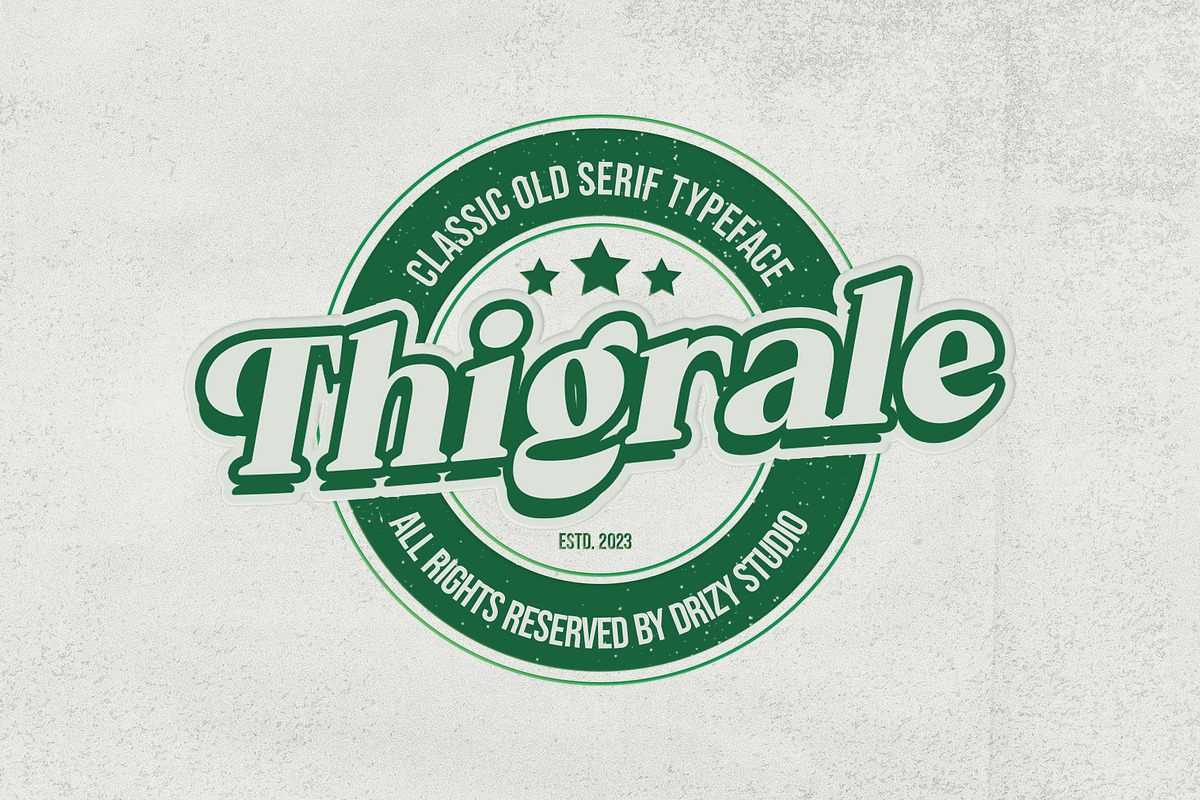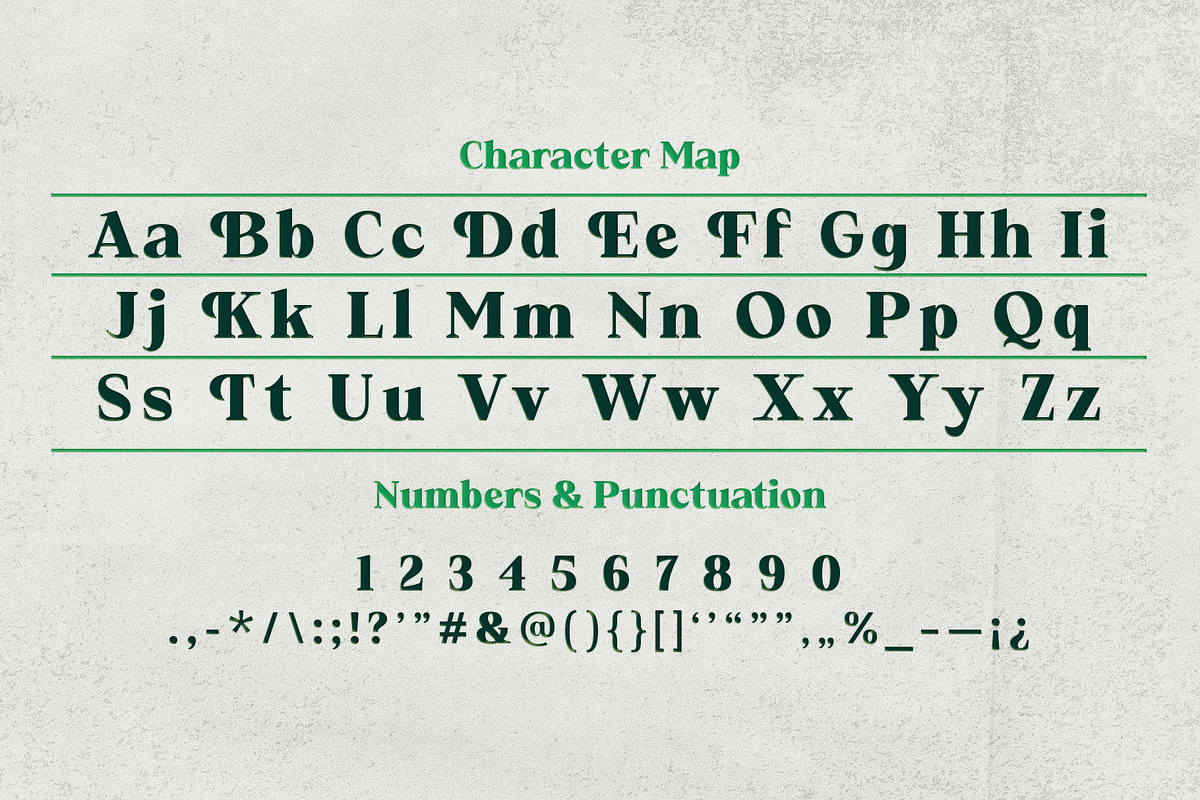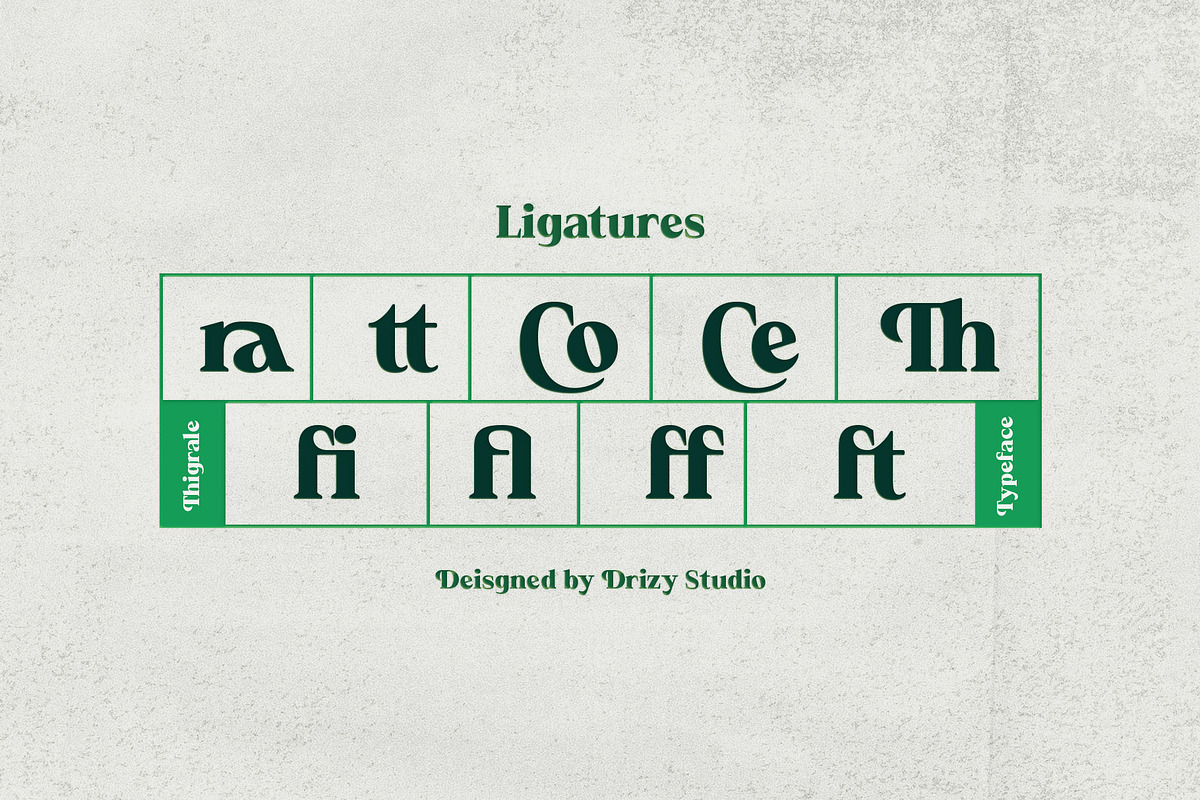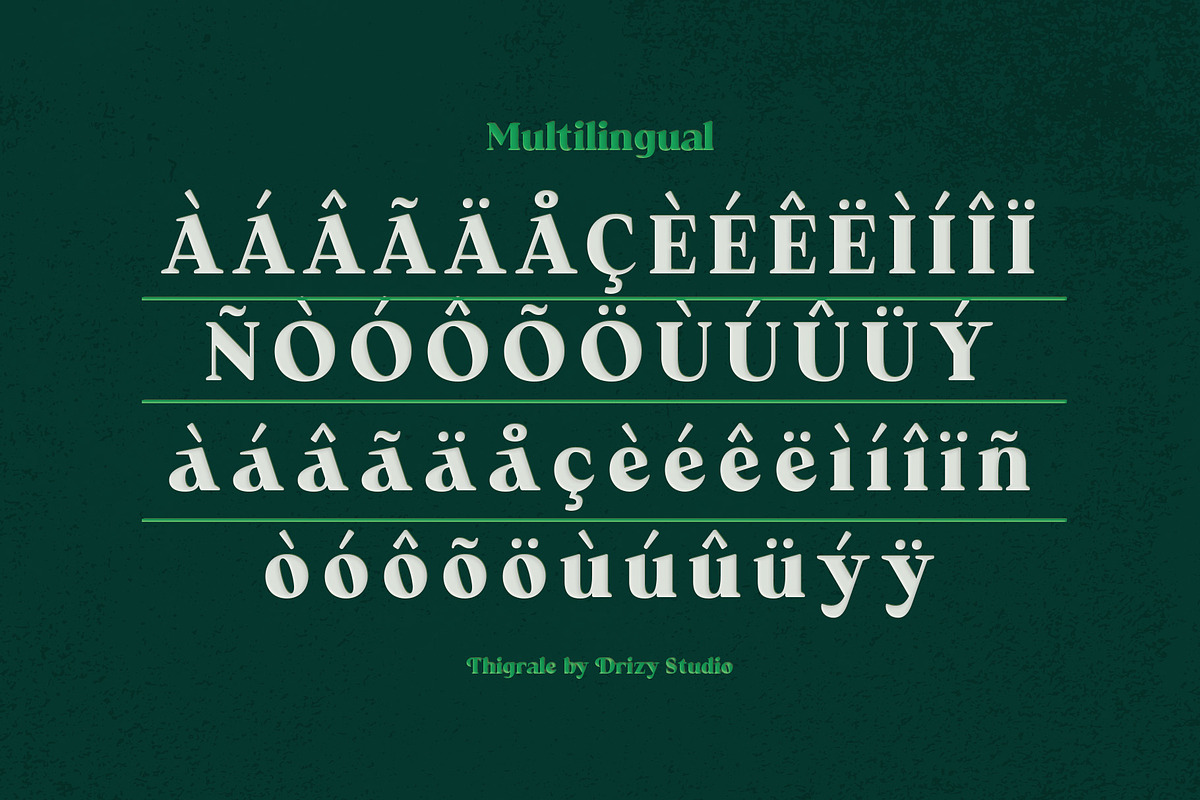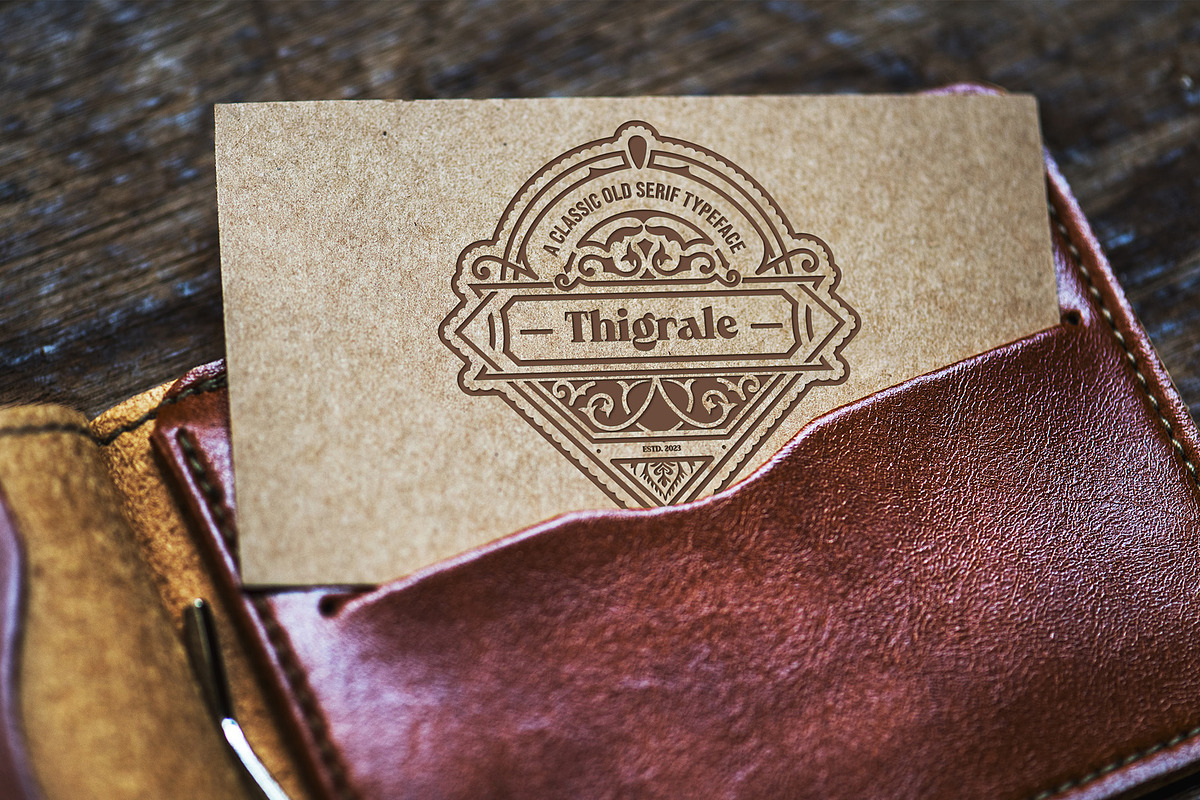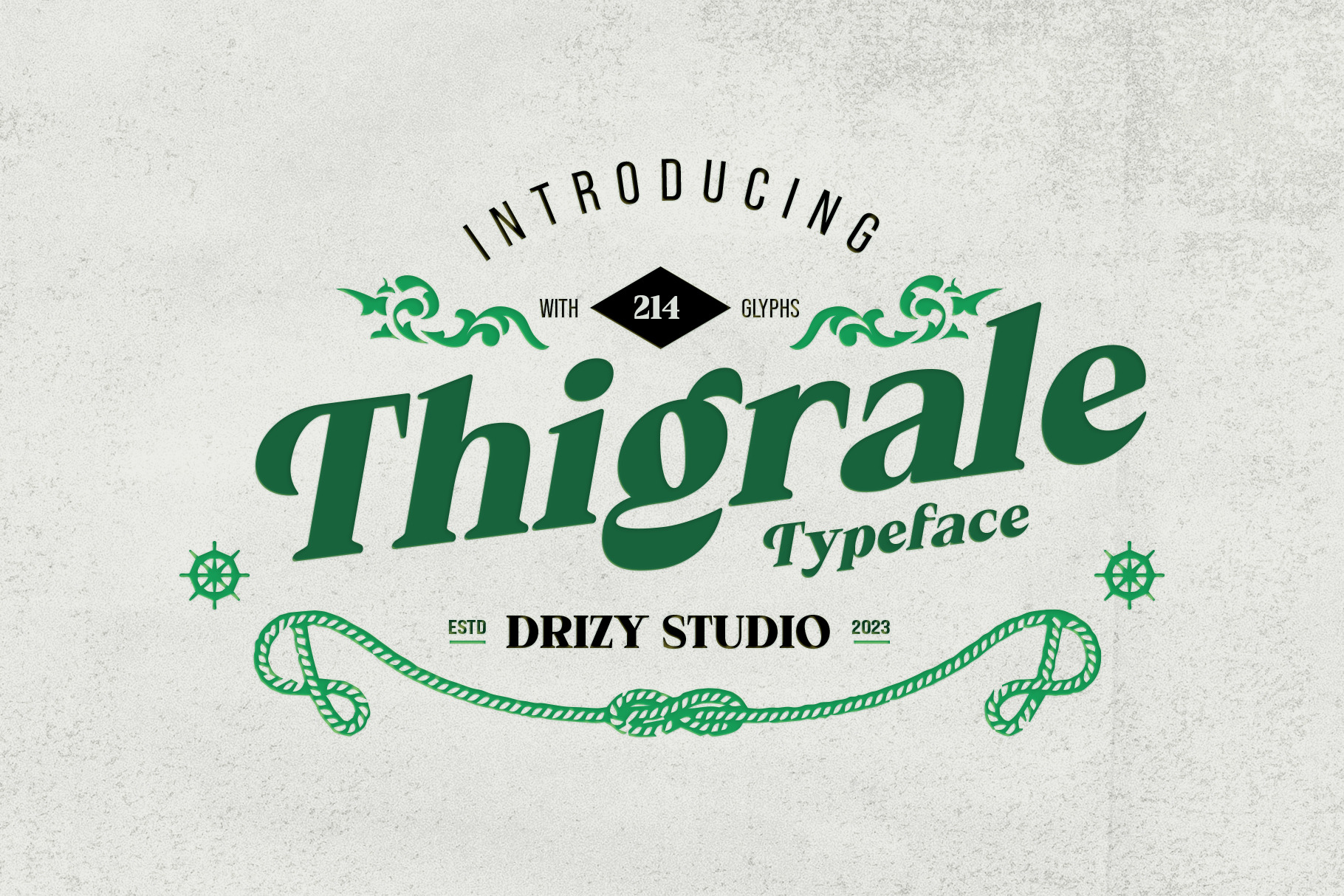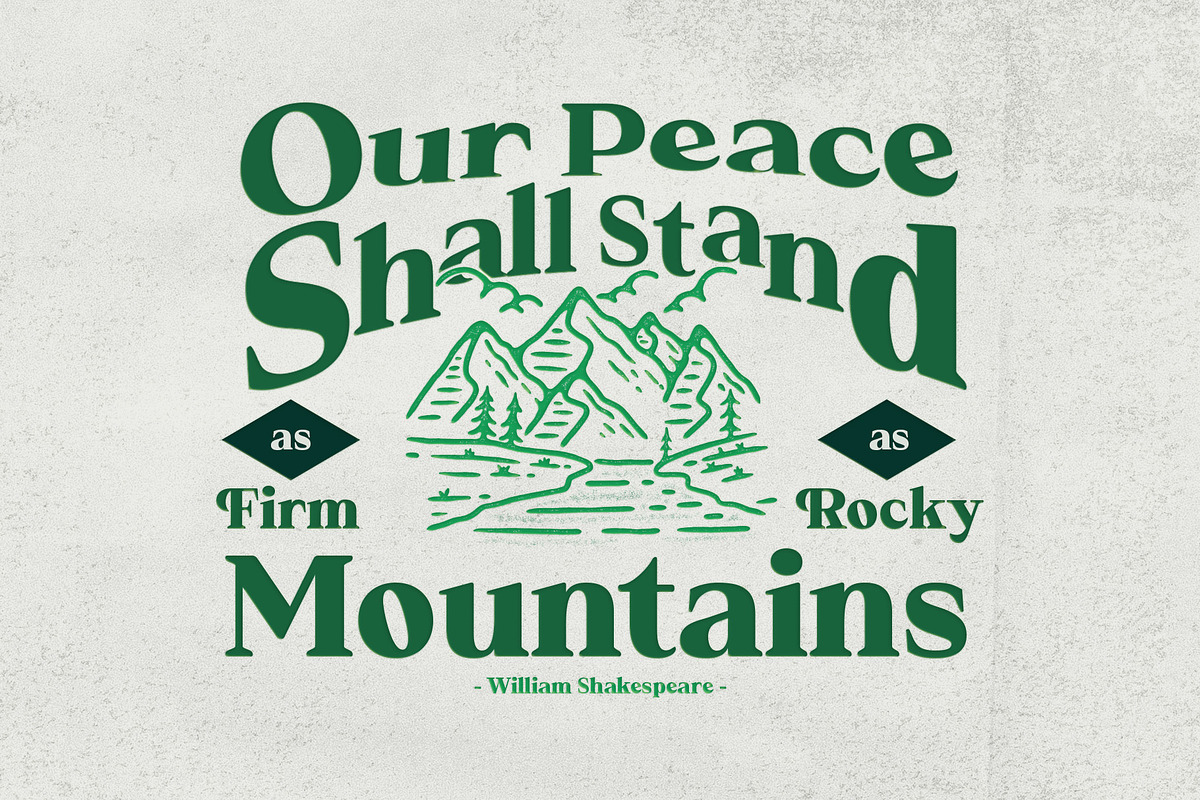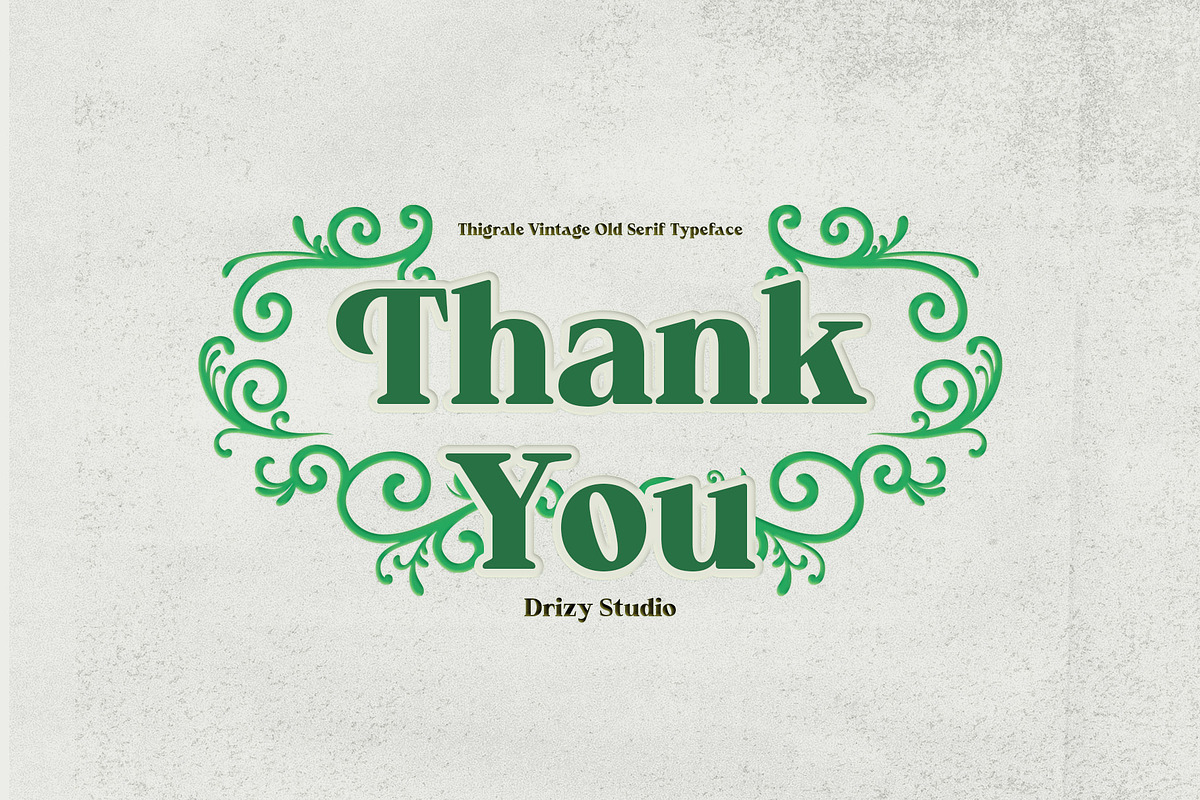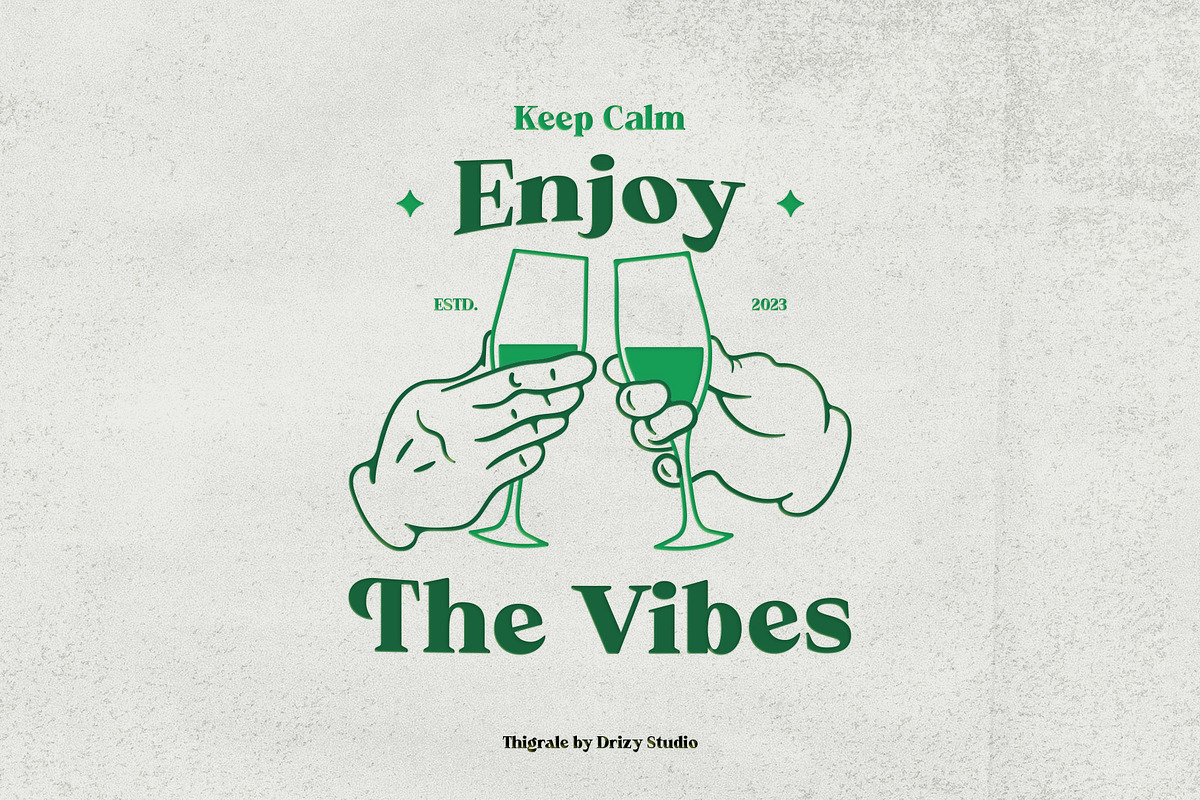
Thigrale – Classic Old Vintage Font
Kindrich font is vintage serif fonts that is a timeless and elegant category of typefaces that harken back to the bygone eras of print and typography. These fonts exude a timeless charm and authenticity, reflecting the craftsmanship of centuries past.
Thigrale features: Uppercase & Lowercase Punctuation & Numbers Multilingual Support Alternates Ligatures Do not hesitate to contact us if you have any questions about this font. Hope you like it and enjoy it! 🙂